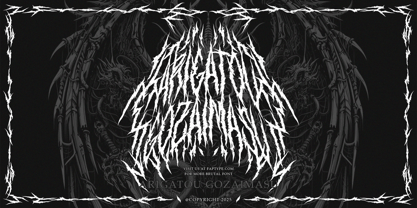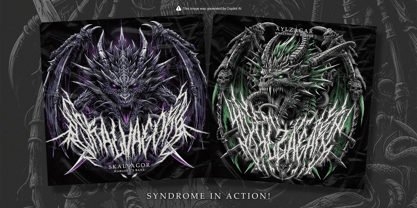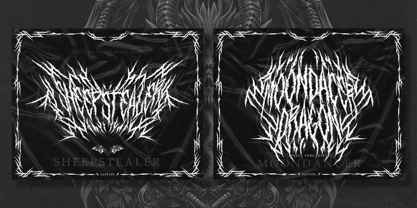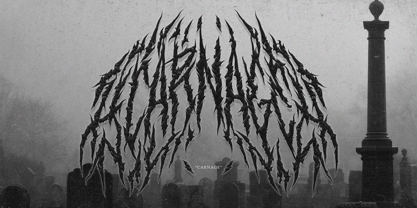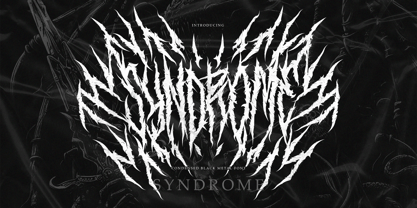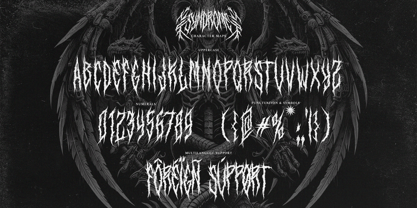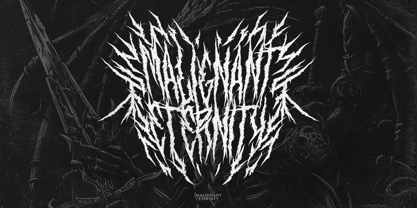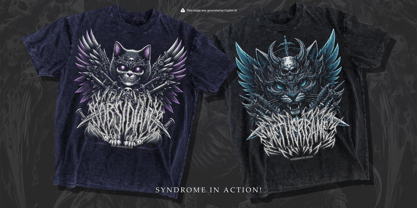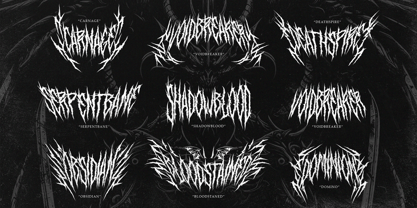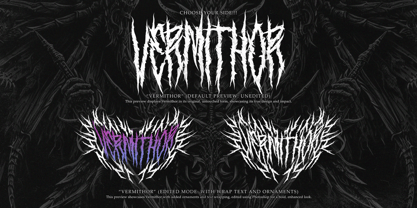
Syndrome Black
Unleash the raw power of darkness with Syndrome, a condensed black metal font forged in the depths of the abyss. Designed for those who dare to embrace the extreme, Syndrome delivers a sinister, razor-sharp aesthetic that captures the chaotic energy of black metal, death metal, and underground extreme music culture.
With its narrow yet aggressive letterforms, this typeface cuts through the void like a blade of pure darkness. Each stroke drips with raw intensity, evoking the essence of cryptic sigils, ancient grimoires, and the unholy resonance of blackened soundscapes. Syndrome is not just a font—it’s a visual manifestation of brutality, rebellion, and darkness.
Whether you're crafting band logos, album covers, gig posters, clothing lines, or extreme horror visuals, Syndrome brings the perfect fusion of legibility and brutality. Its condensed structure ensures maximum impact in tight spaces while maintaining a ferocious, high-contrast aesthetic. This is a font that demands attention—an invocation of chaos, mysticism, and raw underground power.
Step into the void and let Syndrome become the visual weapon of your blackened creations. Are you ready to embrace the darkness?
Syndrome features:
- A full set of Uppercase
- Numbers and Punctuation
- Multilingual Language Support